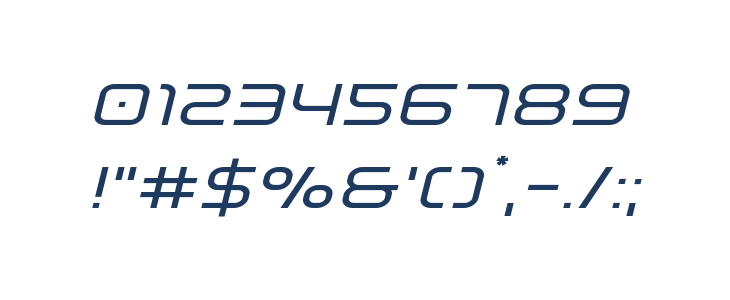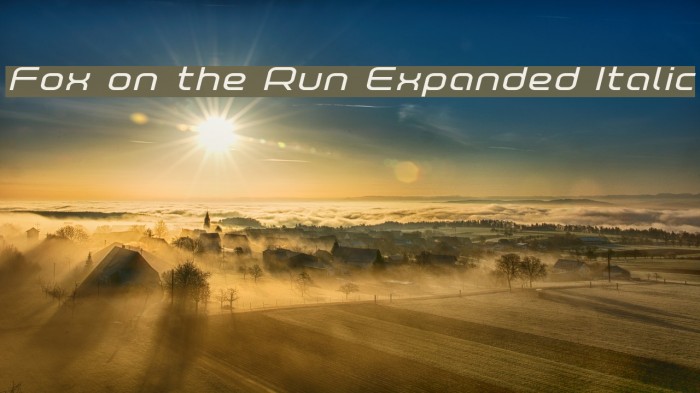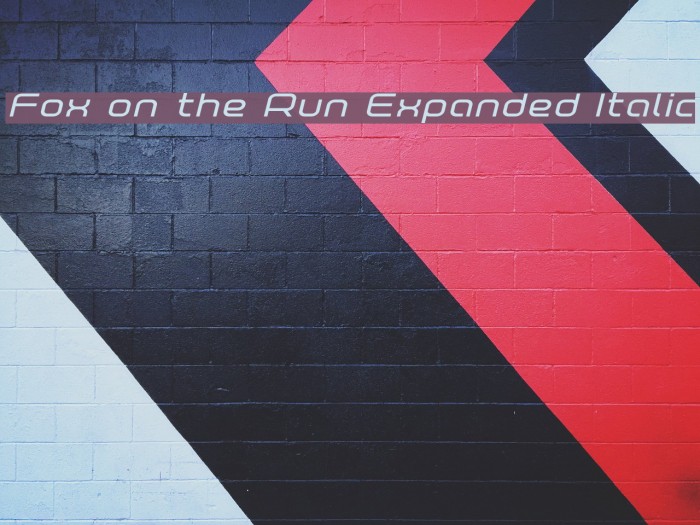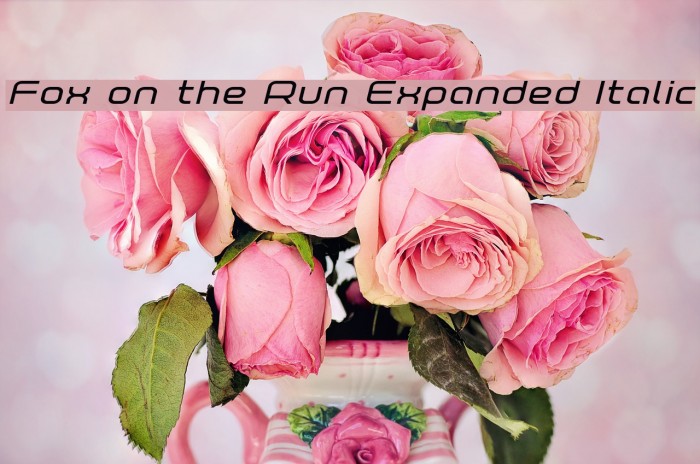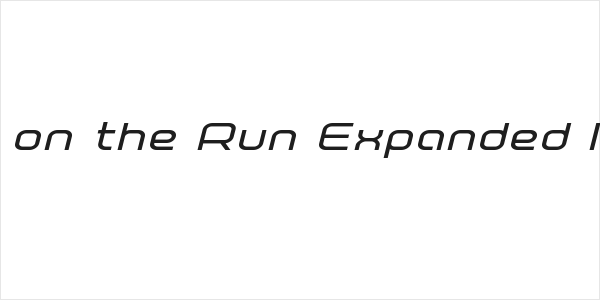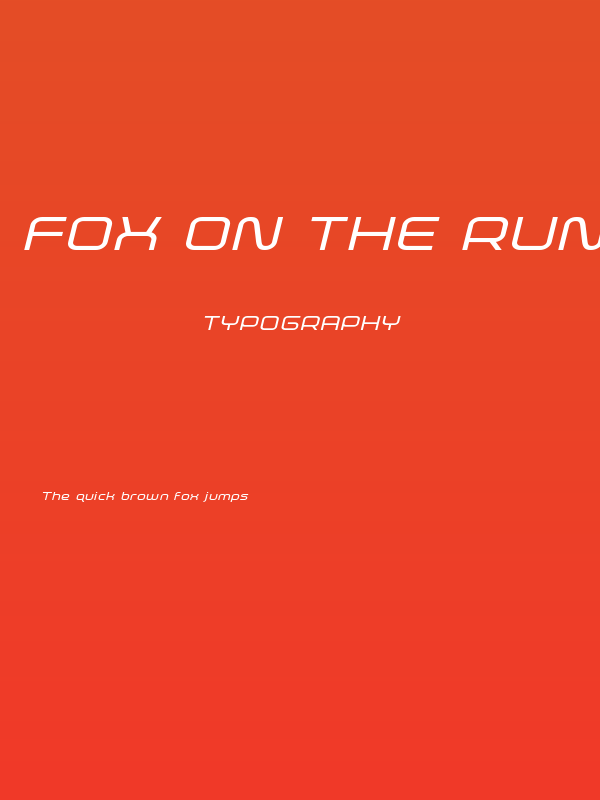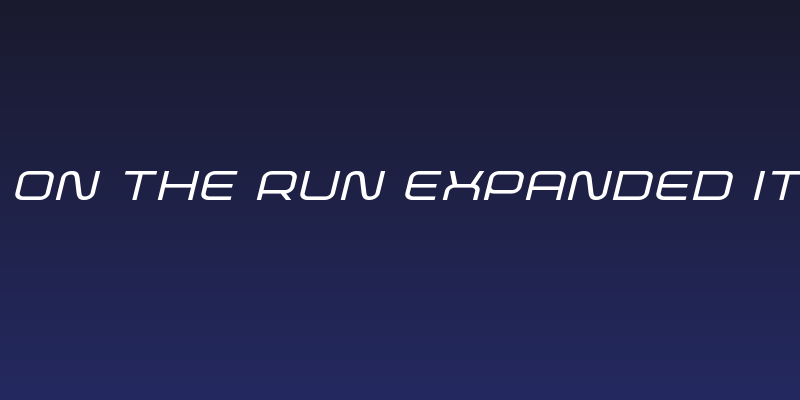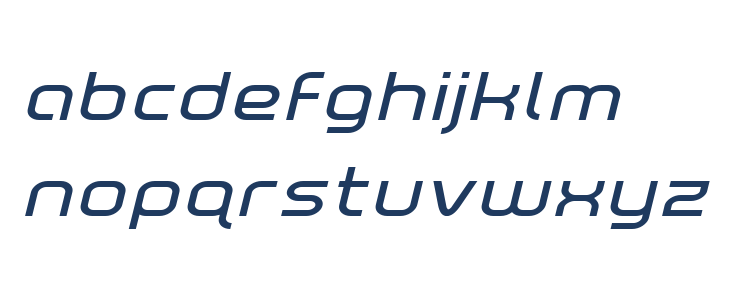
Fox on the Run Expanded Italic Font
Fox on the Run Expanded Italic Description
This font features a sleek and modern design with a distinctly italicized style, giving it a sense of motion and dynamism. The characters are slightly expanded, providing a spacious and airy feel. The strokes are consistent in weight, offering a uniform appearance across all characters. The rounded edges and smooth curves enhance its contemporary look, making it suitable for a variety of design applications. The font maintains a balance between readability and style, making it versatile for both digital and print media.
| Use Case | Headlines, Logos, Digital Media |
| Proposed Projects | Ideal for branding, advertising, and digital media projects that require a modern and dynamic look. |